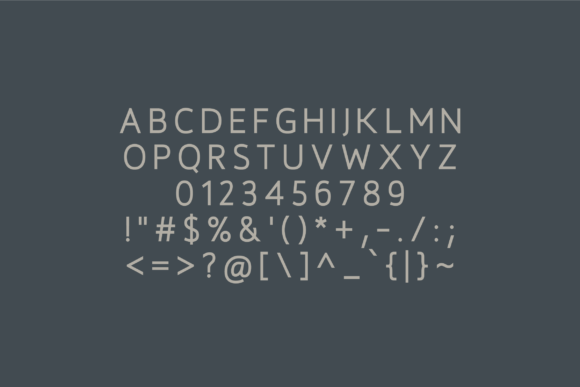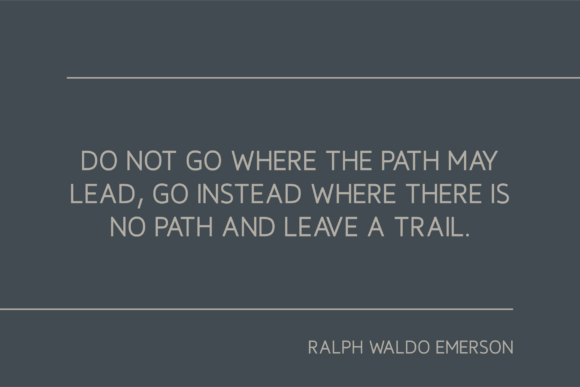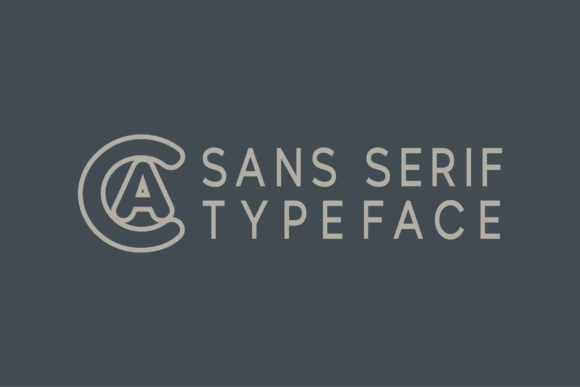
Introduction to Eudaimon Font
Meet Eudaimon, a sophisticated contemporary sans serif typeface.
Adorned with an impressive array of uppercase letters, numeric figures from 0-9, and an expansive assortment of punctuation and symbols, it embodies the essence of versatility Eudaimon is an extraordinarily adaptable typeface, making it ideal for everything from logos,bespoke wedding invitations, inspiring quotes, compelling advertisements, elegant print materials to high-impact magazines.
Key Features of Eudaimon Font
Why Choose Eudaimon Font?
Eudaimon Font offers exceptional quality and versatility, making it a valuable addition to your design toolkit. Whether you’re creating for personal projects or commercial use, Eudaimon Font delivers professional results.